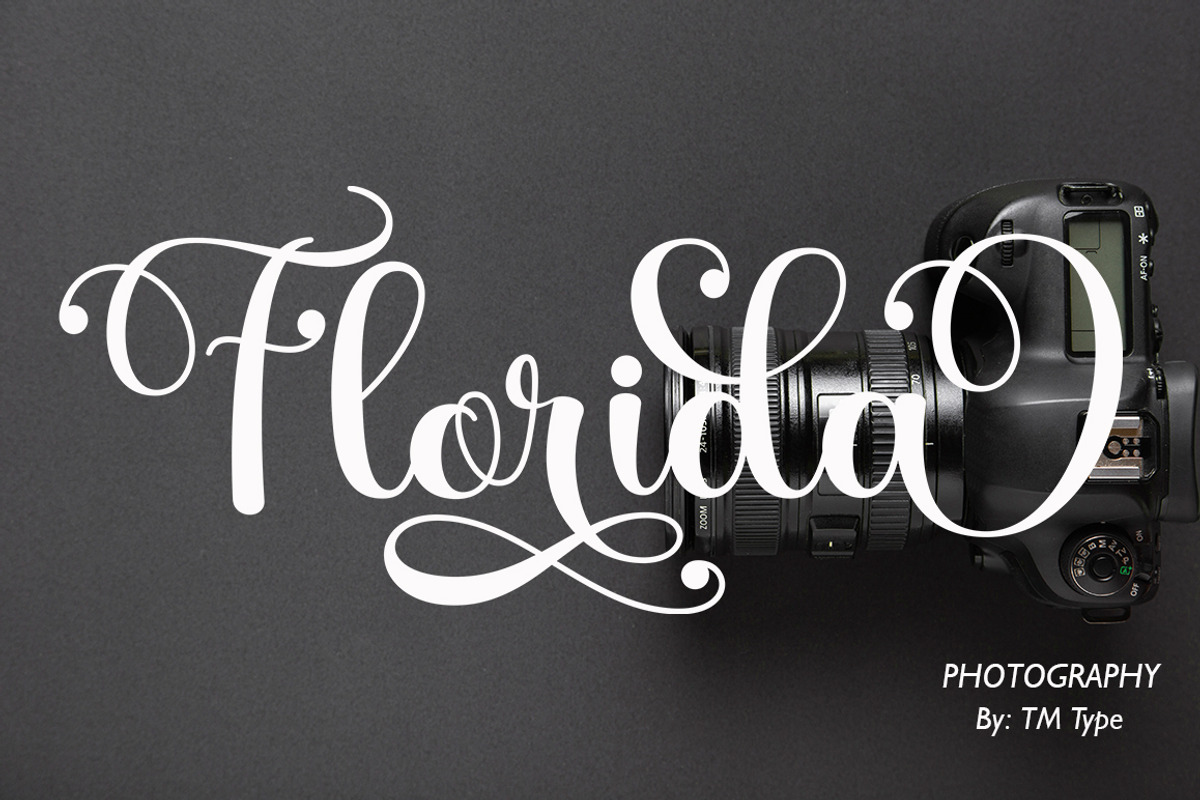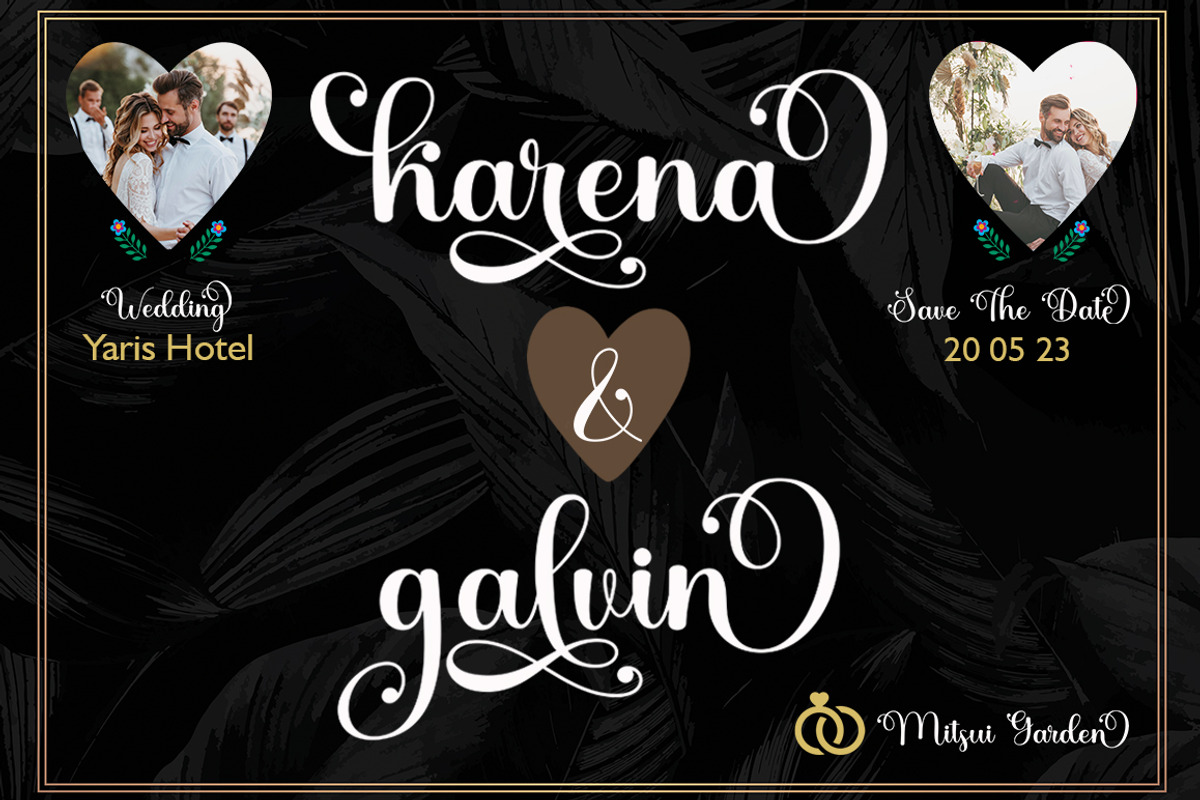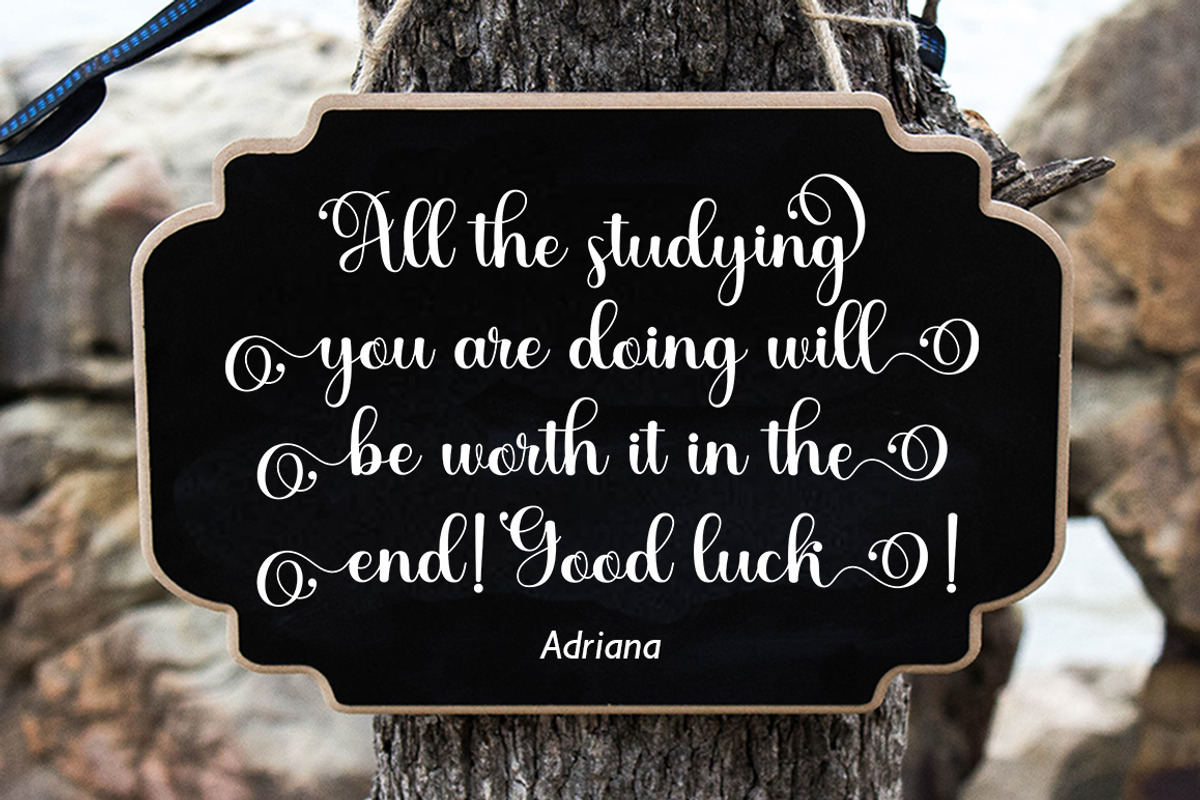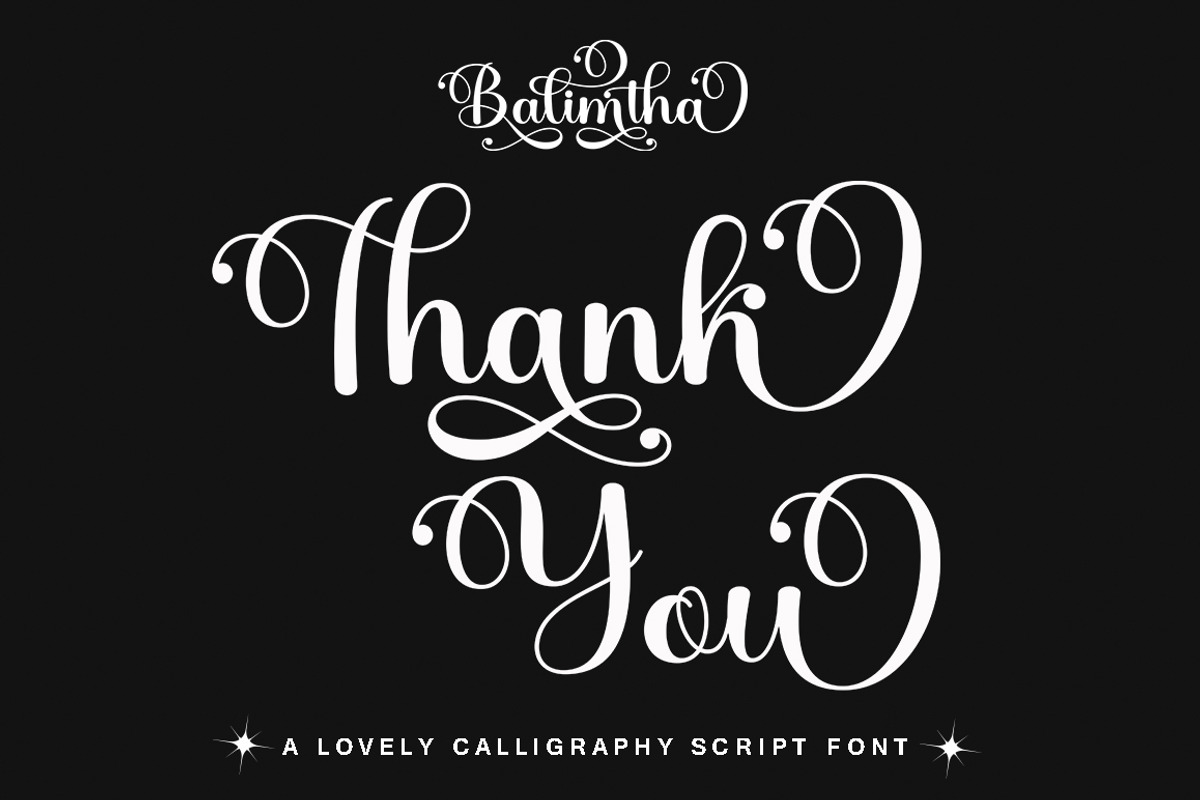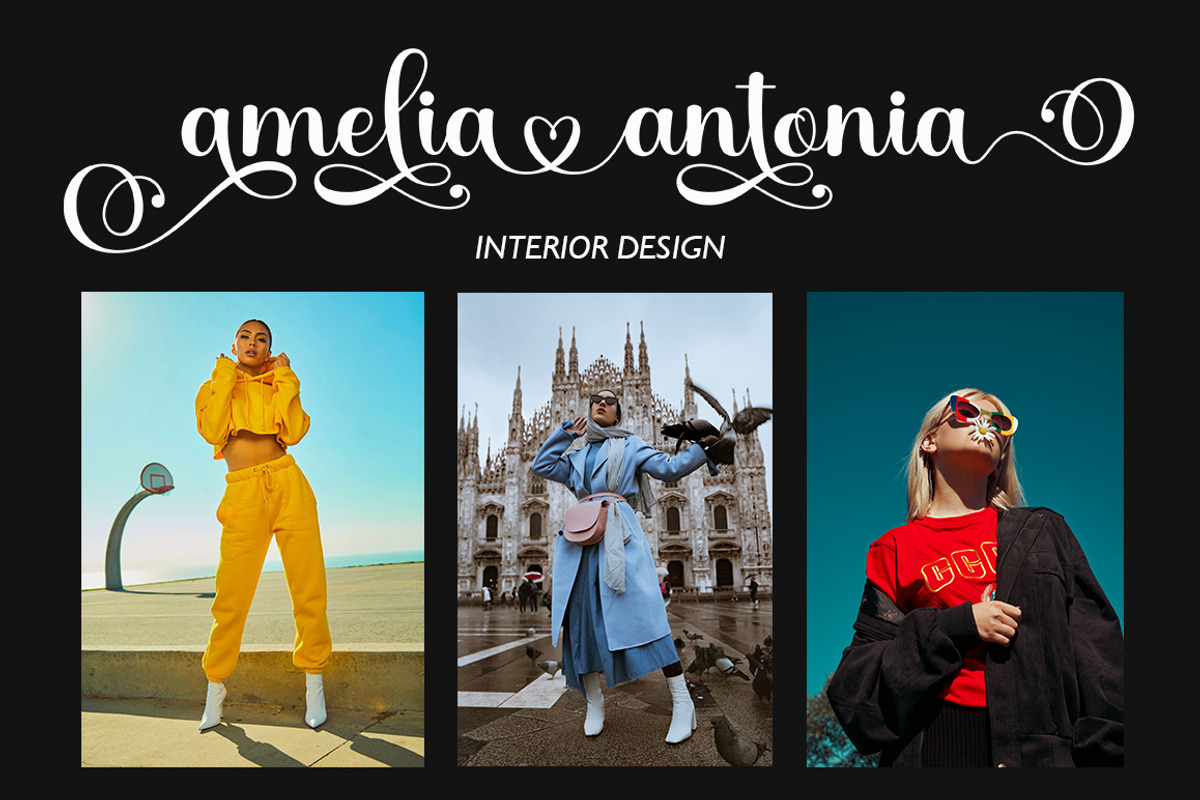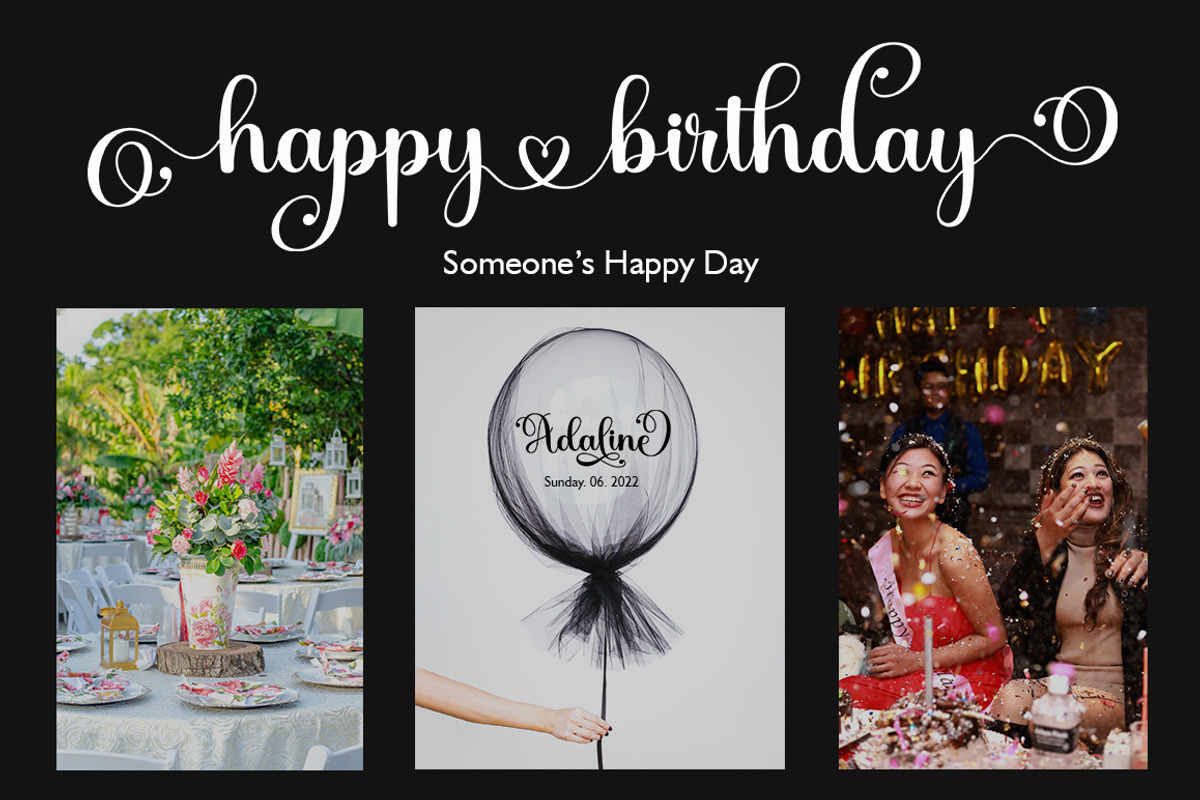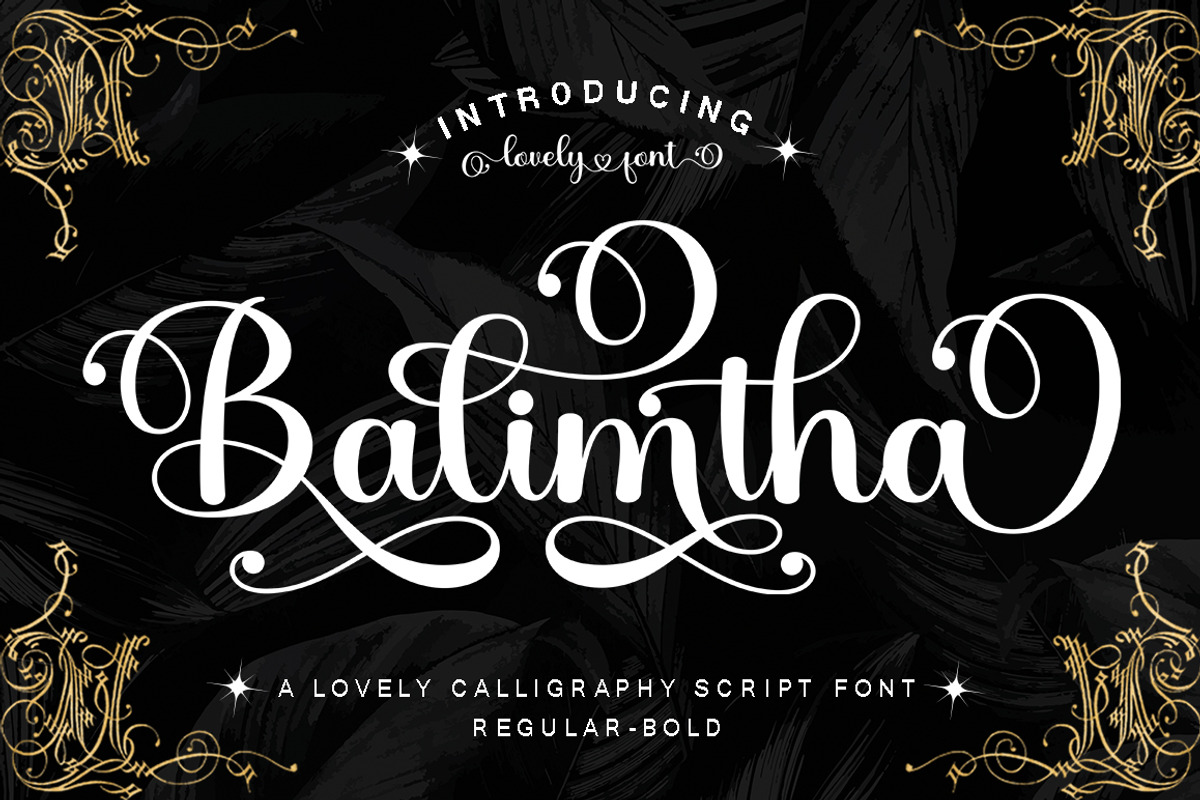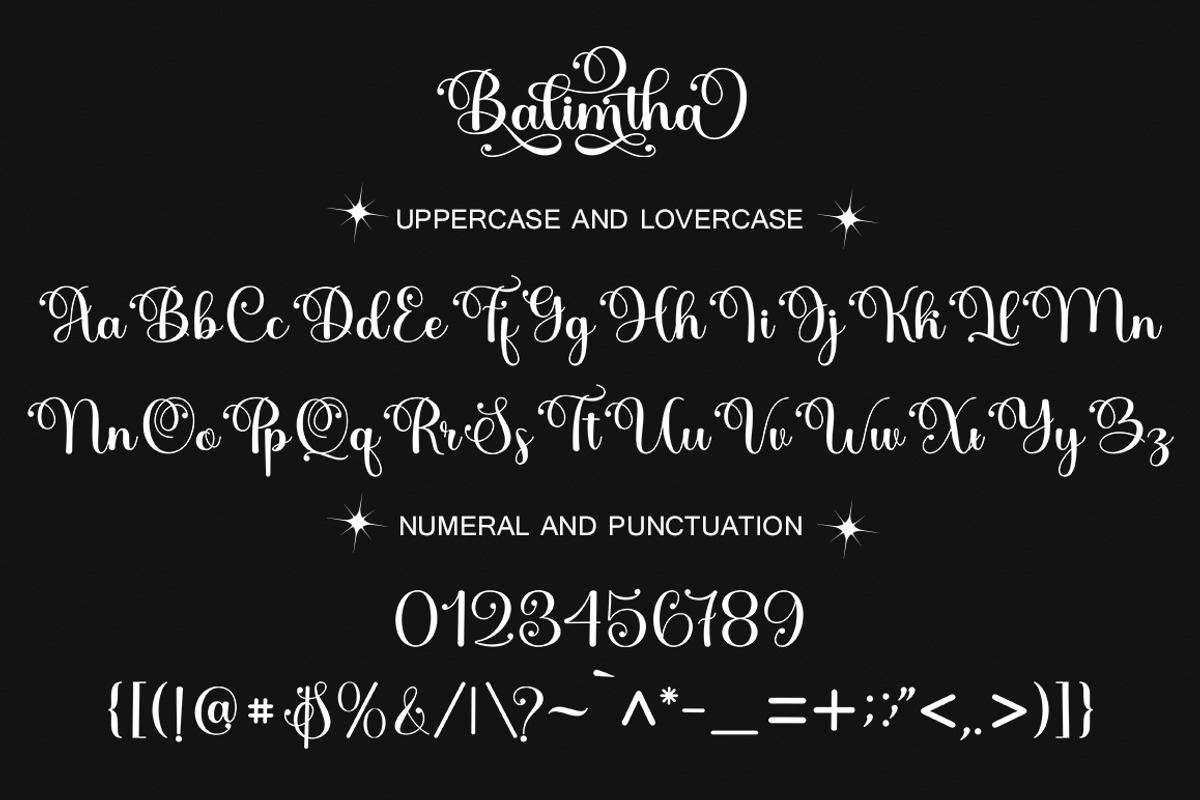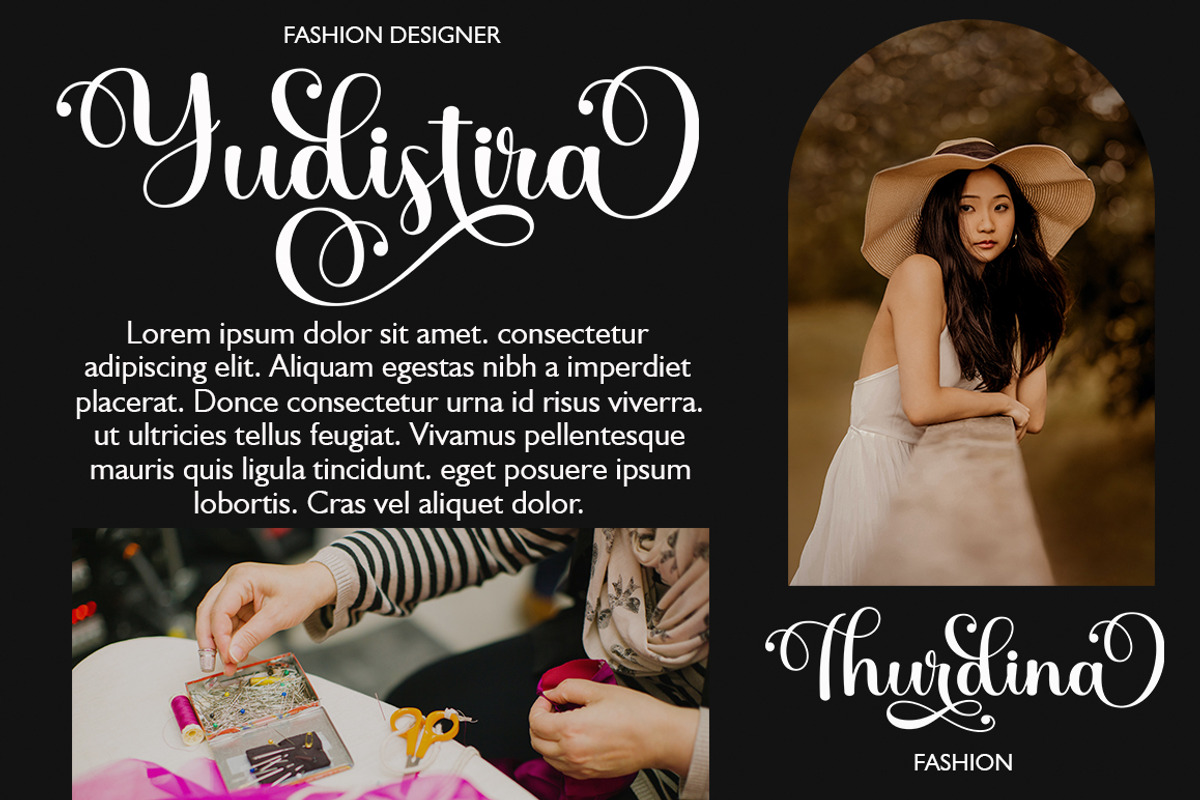
Balimtha
Hi everyone, I want to introduce my newest font Balimtha Script is a beautiful modern love font, I hope you will be interested in this font, if you want to use it for your work.
This font can be used easily and simply because of the many features in it. contains a complete set of lowercase and uppercase letters, a wide variety of punctuation marks, numbers, and multilingual support.
ligatures and contains many Style Sets of alternative styles such as alternate stroked hearts to join two words, example: amelia-antonia
Balimtha is perfect for today's emerging market design, this font has a stylish, trendy, natural and soft font, with this font you can take advantage of any occasion at any time is a great way to make the most of celebrations, because this font will become an advocate for purposes such as wedding invitations, branding, parties, graduations, birthdays, gatherings, and many others.